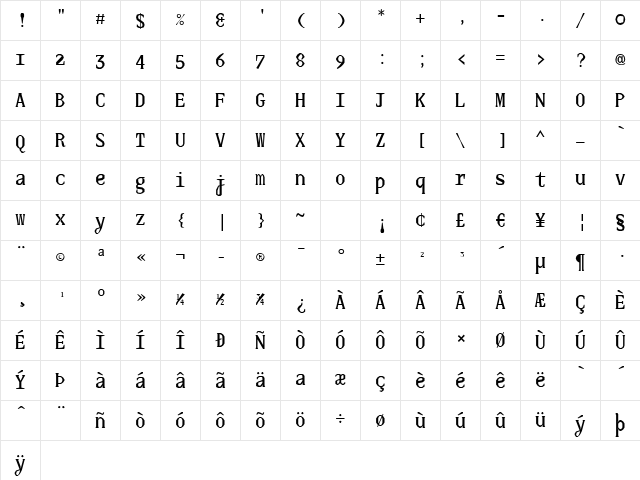
Complete JUstice Mono Regular glyph index. Displaying only characters natively supported by JUstice Mono Regular font.
JUstice Mono uses fixed-width spacing throughout, giving it the structured, systematic character associated with coding environments and technical documentation.